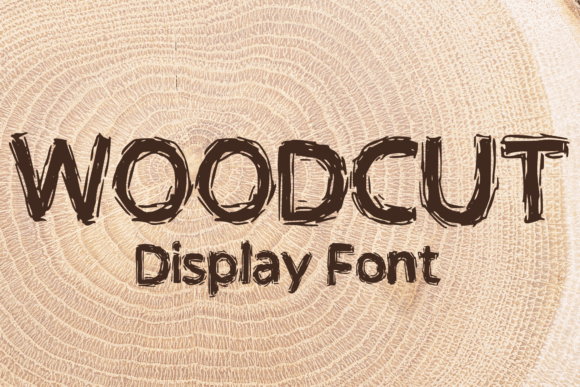
Journey through the charm of yesteryear with Woodcut, a display font reminiscent of traditional woodcut stamp prints, conjuring the essence of aged, weathered wisdom. Every letter is a canvas of etched stories, inviting you to craft captivating designs that whisper of rich narratives.
Whether you're an avid blogger, a zealous author, or a passionate illustrator, Woodcut will elevate your creations with its enigmatic presence. Picture your blog titles leaping off the screen, capturing attention with an allure that radiates authenticity. Your book covers will exude an aura of timeless tales, beckoning readers to delve into the depths of your literary masterpieces. From rustic wedding invitations to vintage-themed posters, Woodcut effortlessly weaves its magic, evoking an ambience like no other.
Embrace the raw, organic beauty of Woodcut as it lends an air of distinction to your designs. Its rugged charm is a harmonious blend of old-world aesthetics and modern sensibility, making it the perfect choice for those seeking a typeface that resonates with both tradition and innovation.